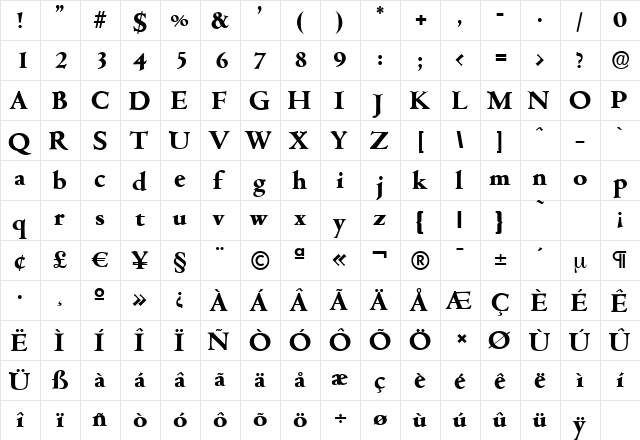
CambridgeSerial-Xbold Regular Font Preview
CambridgeSerial-Xbold Regular
CambridgeSerial-Xbold Regular Font Details
Design Context for CambridgeSerial-Xbold Typeface
CambridgeSerial-Xbold takes a measured approach to typography — its balanced proportions and neutral character make it a reliable workhorse for both digital and print work. The heavy weight commands attention and anchors typographic hierarchies.